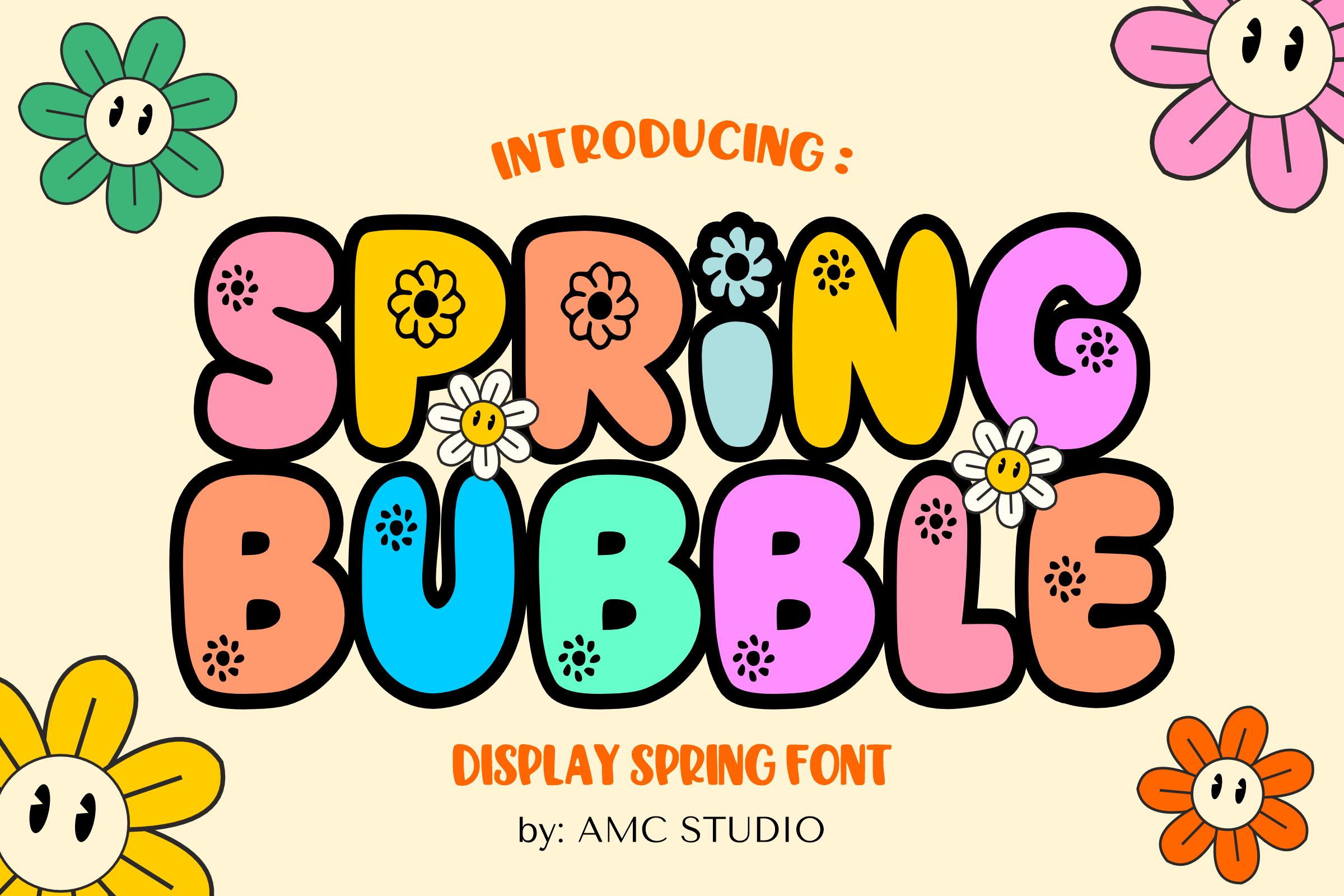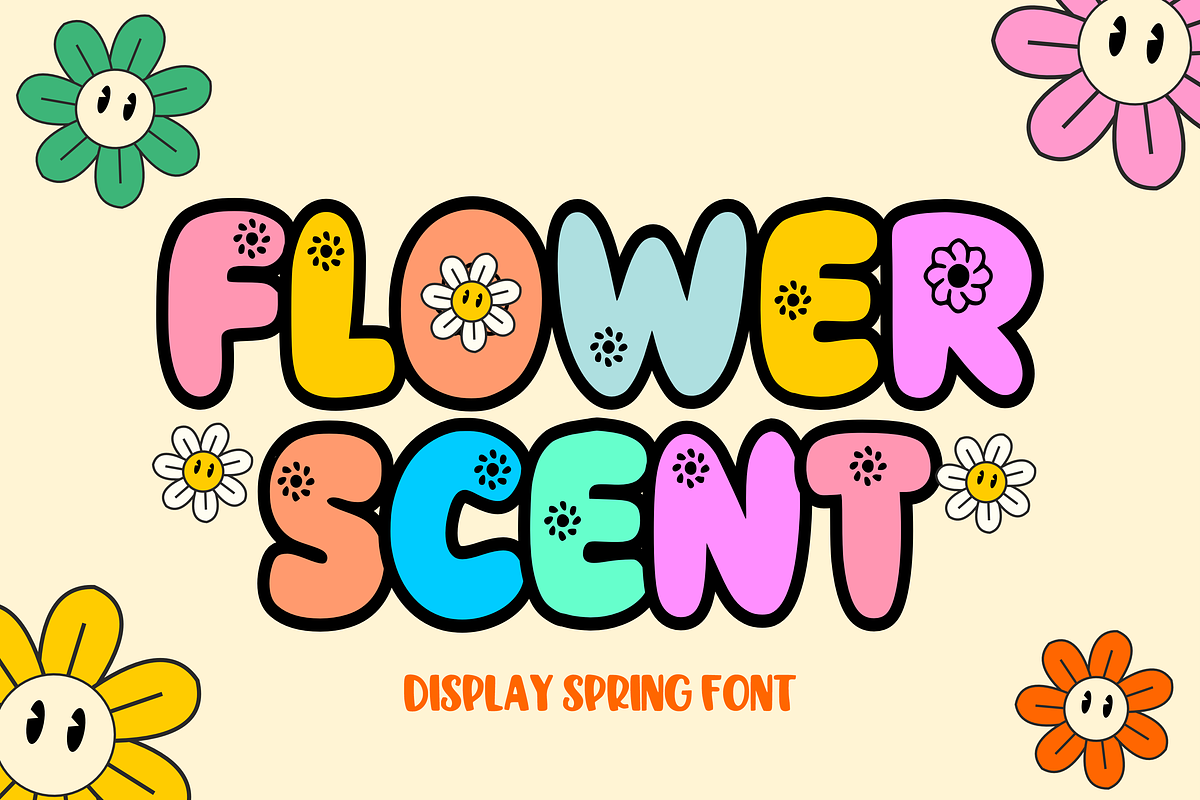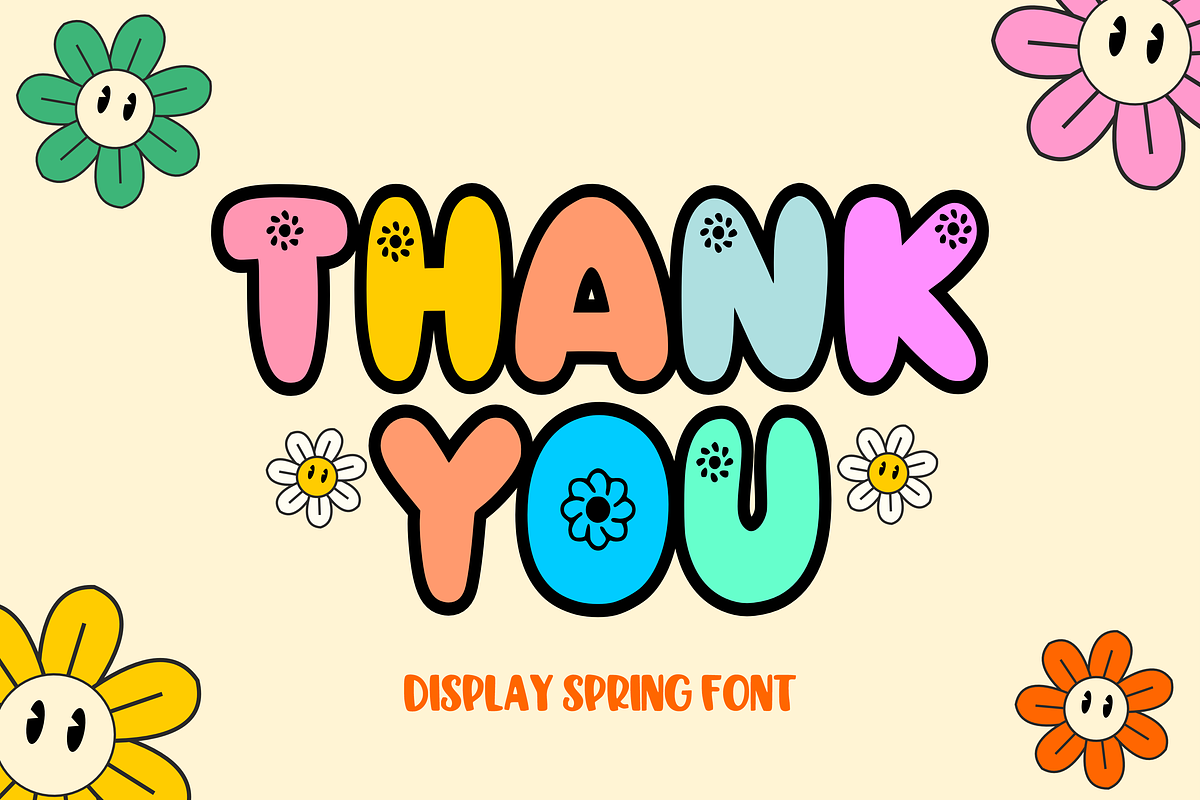
Spring Bubble - Bubble Font Types
Spring Bubble is a charming spring display font that captures the essence of vintage design. Its cheerful curves and bold flowers evoke a sense of fertility, reminiscent of a cheerful springtime style. With its unique character, Spring Bubble adds a touch of whimsy to any project, making it perfect for posters, logos, and creative titles that need a little retro flair.